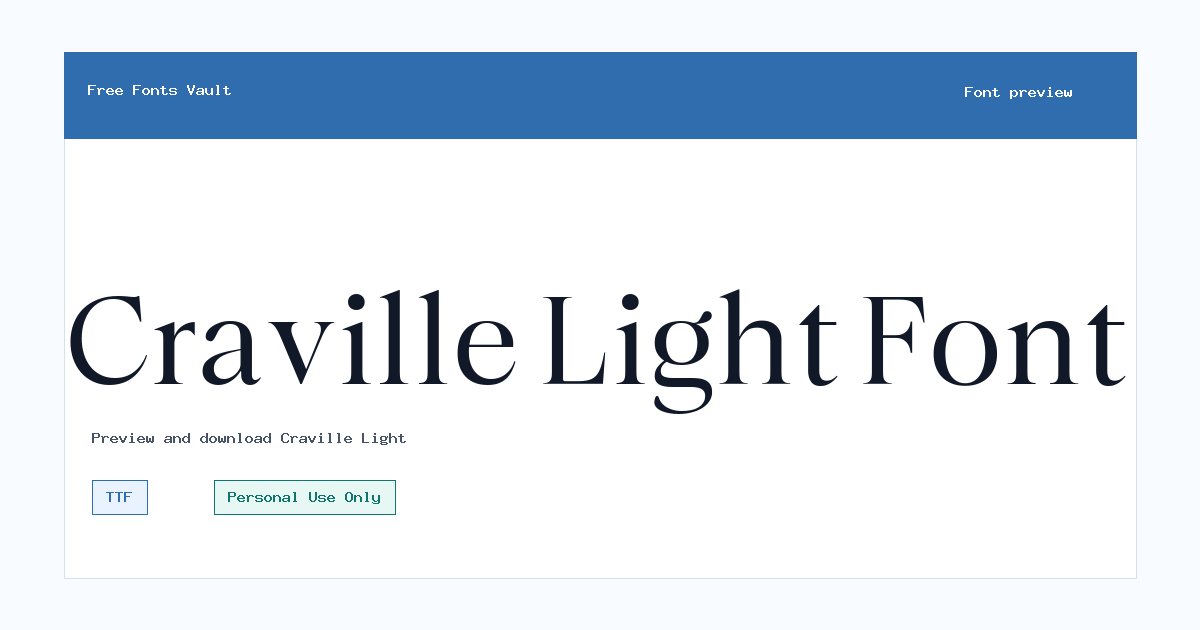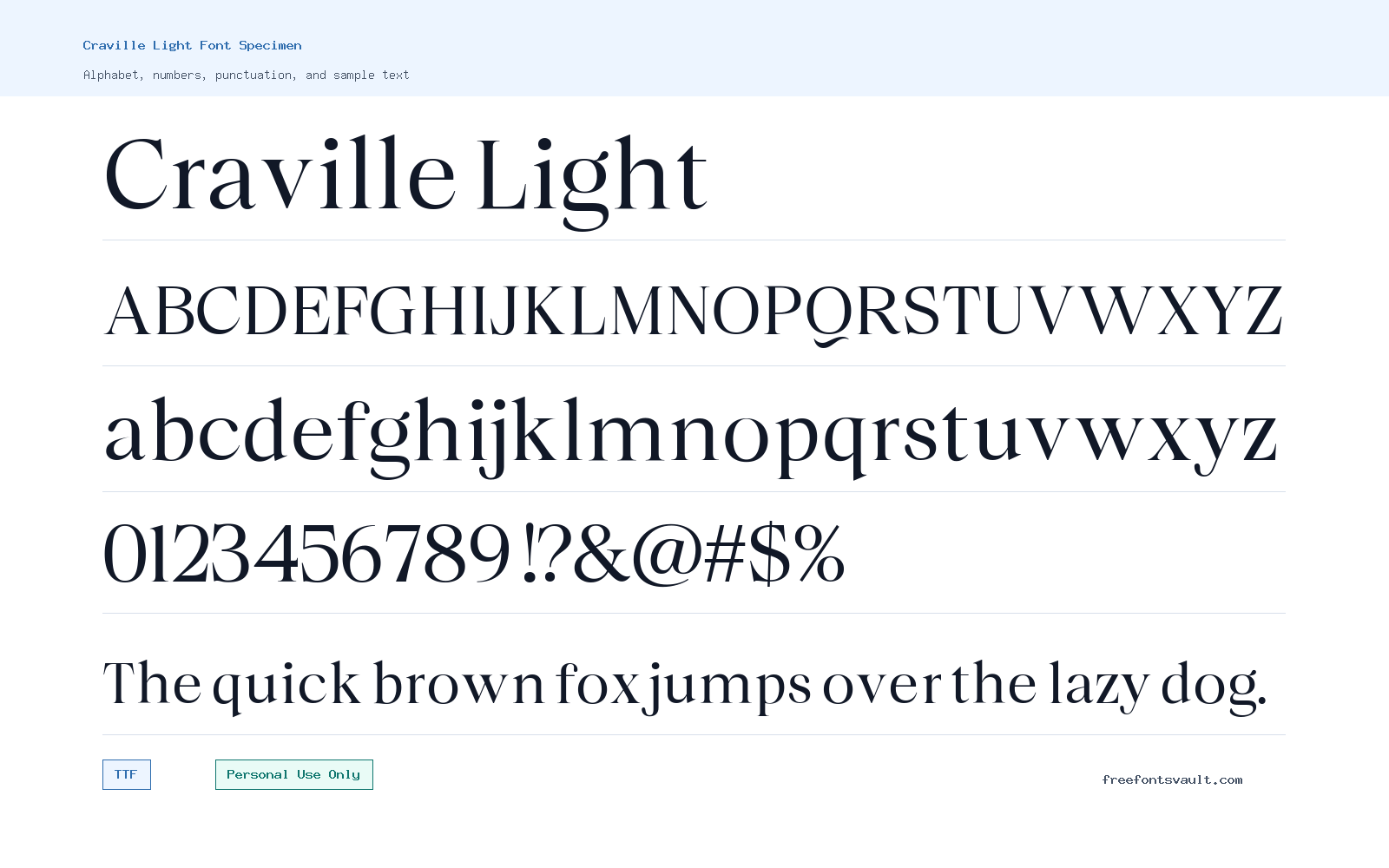
Craville Light
- Designer Glyphminds Studio (Graphicted.Co)
Craville Light font.
Craville Light is a light-weight serif font from Glyphminds Studio, connected with Graphicted.Co. It is a TTF font with a 300 weight, making it better suited to refined display text than heavy headline work. The license information marks it as Personal Use Only, so treat it as a font for personal drafts, previews, and non-commercial design testing unless you secure broader rights from the owner.
About Craville Light
Craville Light is part of the Craville serif family name and uses a regular, upright style rather than an italic or slanted cut. Because the file is a light weight, it will usually feel more delicate on the page than a regular or bold serif. That makes it useful when you want a softer title, a quiet brand mood board, a clean editorial heading, or a display line that does not dominate the whole layout. It is not the kind of font to choose when you need maximum impact from a thick poster headline; it is better when the design has enough white space and the words can breathe.
Use the preview box to test the exact words you plan to design with. Light serif fonts can look beautiful in short text, but they may lose clarity if the size is too small, the background is busy, or the contrast is low. Try it first with names, logo drafts, invitation headings, product mockups, magazine-style titles, Pinterest pin text, and website hero sections. For longer paragraphs, test carefully before committing, especially on mobile screens. If the strokes feel too fine, pair Craville Light with a clearer body font and keep this one for headings, labels, and short decorative lines.
For logo work, Craville Light can be a good exploration font when the brief asks for a calm serif look rather than a bold or playful one. Test it in uppercase, lowercase, and title case because light fonts often change personality a lot depending on casing. A short luxury-style wordmark may need wider letter spacing, while a personal blog title may work better with normal spacing and a simple layout. Avoid adding too many effects. Shadows, outlines, gradients, and textured backgrounds can make thin strokes harder to read.
For posters and social graphics, give the letters enough size and contrast. A light serif can work well over plain color blocks, soft photography, or minimal layouts, but it may struggle over detailed images. If you are making Pinterest pins, web banners, or album-style mockups, compare the font at both full size and thumbnail size. A design that looks polished on a desktop can become too faint in a small preview. Use stronger supporting typography for dates, prices, captions, and calls to action.
Pairing Craville Light is mostly about balance. A simple sans serif can handle body copy, navigation, captions, or small interface text while Craville Light carries the title. If you pair it with another serif, choose one with enough contrast in weight or structure so the two fonts do not feel almost the same. Keep the number of typefaces low. One display serif and one practical text font will usually be cleaner than a crowded mix.
- Light 300 weight for refined headings and display text
- Regular upright style with no italic angle in the font data
- Named as part of the Craville serif font family
- Best tested at larger sizes where thin strokes remain clear
- Useful for personal logo drafts, posters, web mockups, and editorial-style titles
- Personal logo concepts and wordmark experiments
- Poster titles with plenty of contrast
- Website hero headings and landing page mockups
- Pinterest pin titles and social media graphics
- Invitation headings, name cards, and simple stationery drafts
- Editorial-style titles, lookbooks, and mood boards
The font information names Glyphminds Studio as the designer, with Graphicted.Co listed as the related website. No extra foundry details are confirmed.
Is Craville Light good for body text?
It may not be the best first choice for long body text because light strokes can become faint at small sizes. Use it for headings and pair it with a more readable text font for paragraphs.
Who designed Craville Light?
The font information names Glyphminds Studio as the designer and lists Graphicted.Co as the related website.